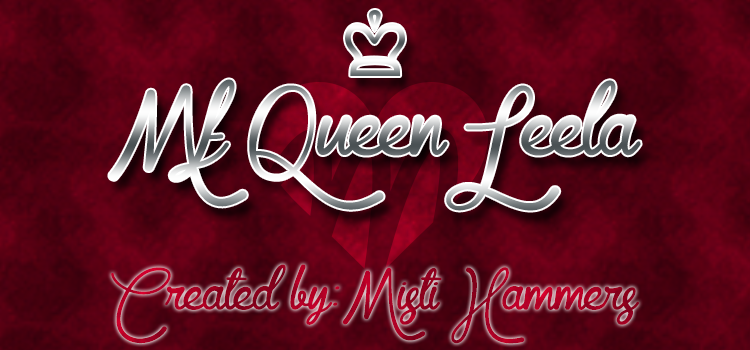
Step out of the ordinary and into the realm of elegance with Queen Leela, a font family that epitomizes grace and sophistication. Designed by the renowned Misti, this script font exudes a captivating aura, making it the perfect choice for adding a touch of royalty to your creative endeavors.
Indulge in the beauty of Queen Leela's flowing curves, which dance across the page like a delicate ballerina. Each letter is crafted with precision, showcasing the perfect balance between legibility and aesthetics. Whether you're creating wedding invitations, branding materials, or social media graphics, Queen Leela adds an instant touch of luxury and refinement.
Let your words come alive with the charm and charisma of Queen Leela. Its enchanting script style evokes a sense of nostalgia, reminiscent of vintage love letters and timeless classics. With Queen Leela, you have the power to transport your audience to a bygone era, where words held a deeper meaning and emotions ran high.
Experience the versatility of Queen Leela, a font that effortlessly adapts to a myriad of design concepts. Whether you're crafting elegant logos, eye-catching posters, or stunning website headers, Queen Leela conforms seamlessly to your vision. Its inherent flexibility allows you to play with different sizes, colors, and layouts, creating designs that command attention and leave a lasting impression.
Dive into the world of Queen Leela and unlock the boundless possibilities it offers. With its timeless beauty and unmatched versatility, this script font will elevate your designs to new heights. Embrace the allure of Queen Leela and embark on a creative journey like no other.